Matches Typeface
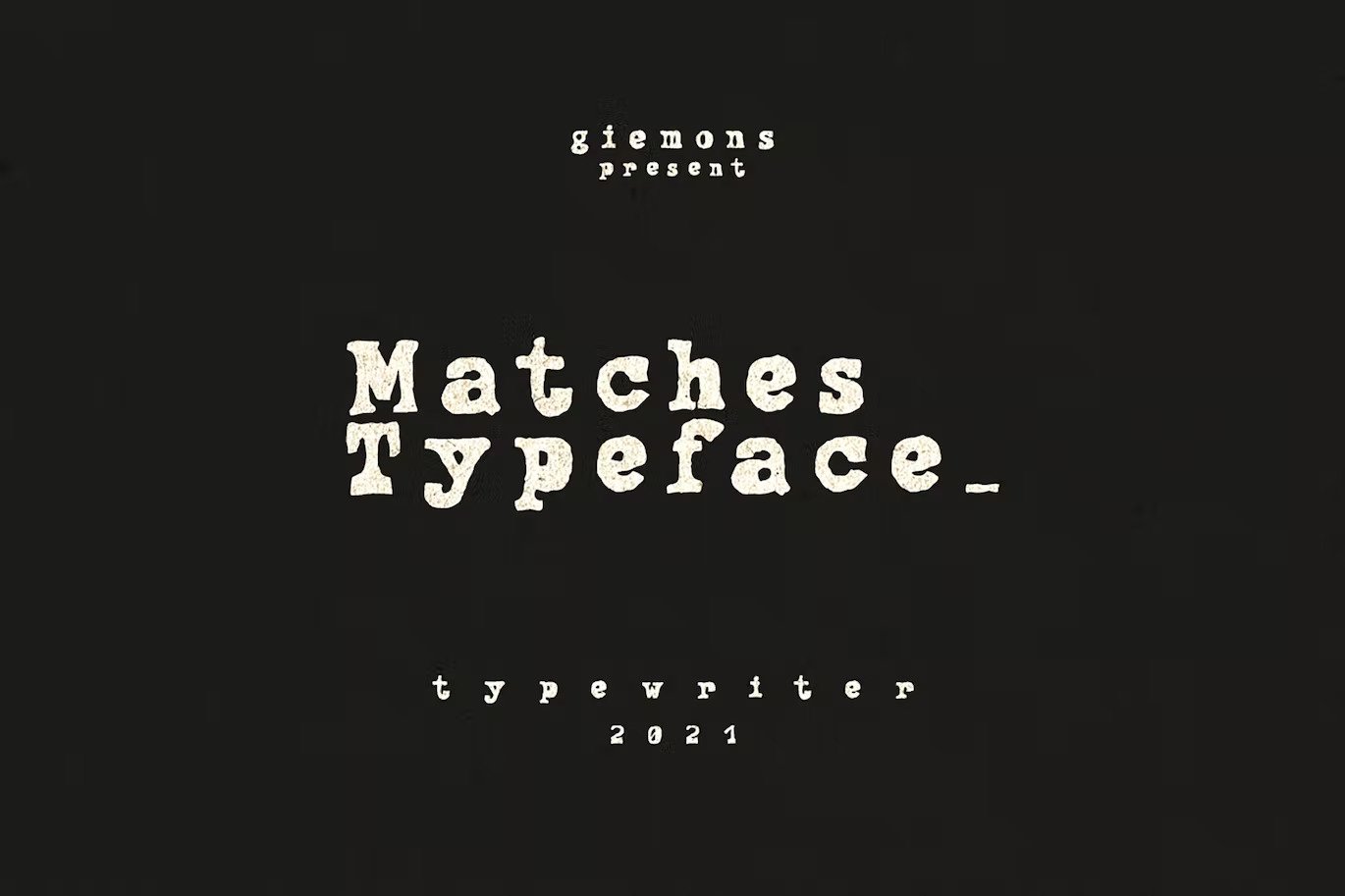
This great typewriter font can make it easier to convey the message in your design. Use for awesome display, logos, labeling, clothing, movie sceens, posters, movie titles and etc.
Agave Azul Typwriter Font
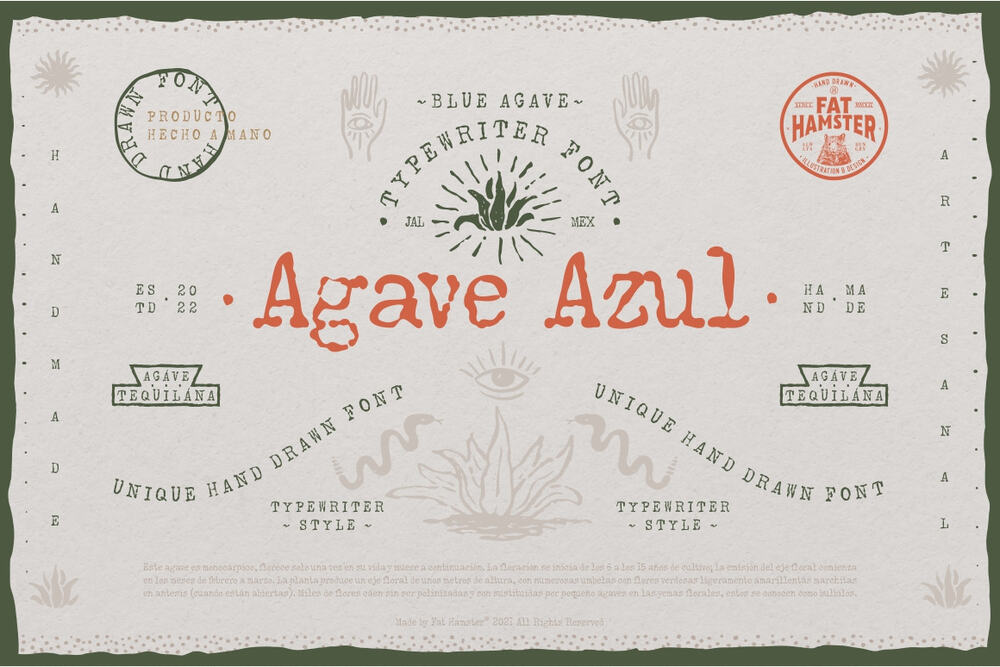
A hand made old typewriter font. Perfect for tequila and mezcal labels, packaging designs, social media quotes, logo and branding designs, apparel designs, whiskey, beer labels and etc.
Bygonest – Old Typewriter Font
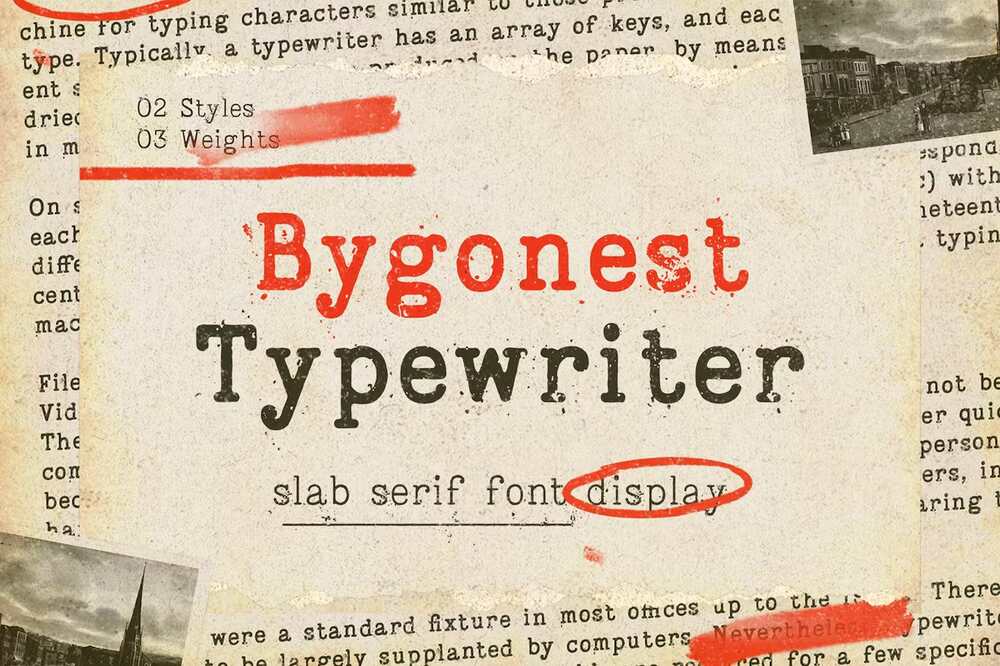
The font comes with 2 styles (clean and rustic) and 3 weights (thin, regular and bold). So good for designs such as newspapers, magazines, quotes, logotypes, posters, labels, packaging and etc.
Free Tox Typewriter Font
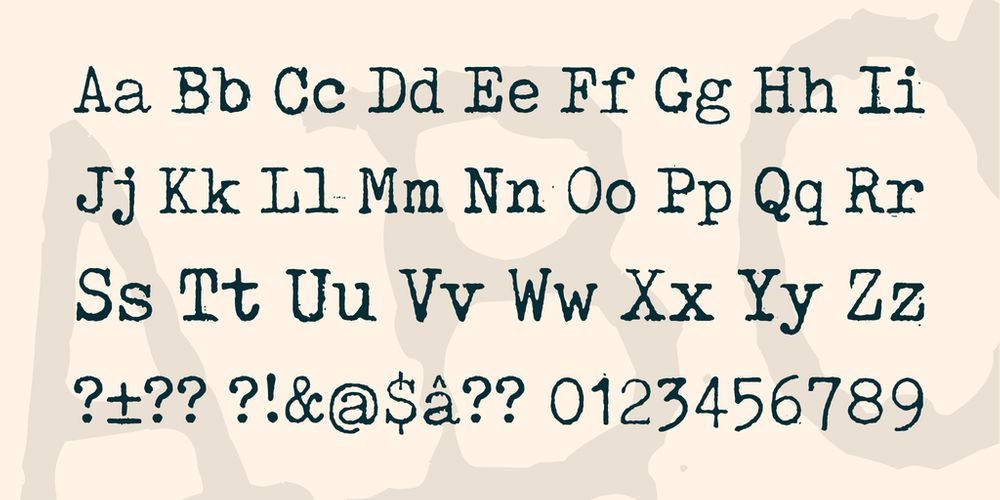
Amazing vintage font free for personal use makes an old typewriter effects for your great design projects.
Free Lumios Typewriter Font
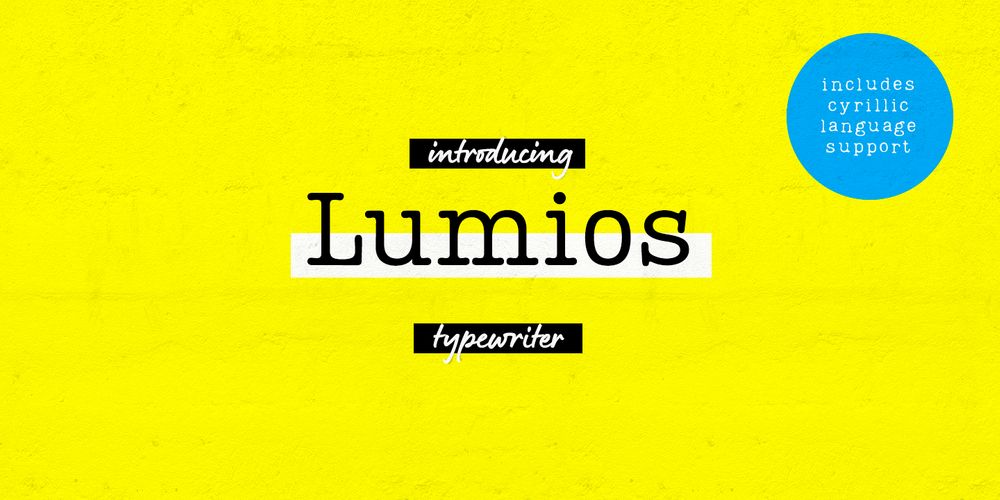
Lumios is a well done old style typewriter font free for personal and commercial use. Perfect for vintage design, postcards, packaging and etc.
Free Veteran Typewriter Font
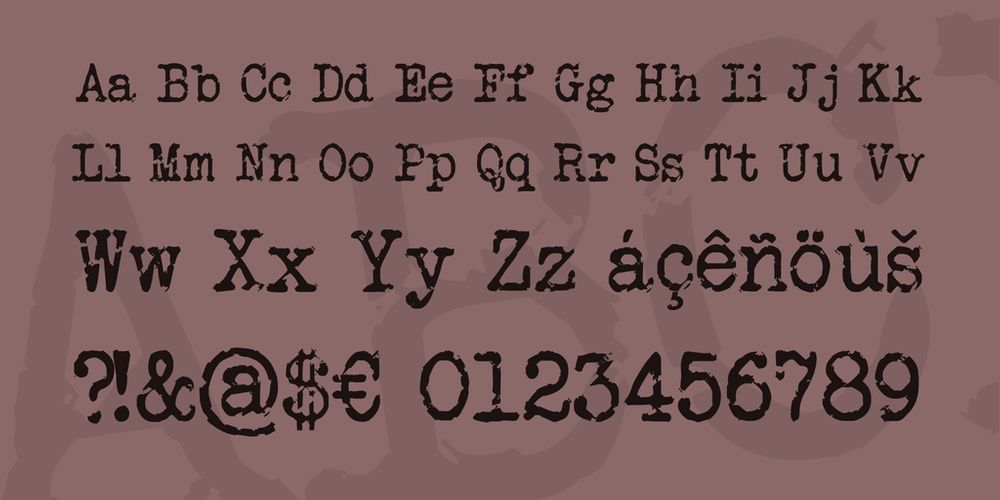
One more old timer typewriter font free for personal and commercial use. It is great for many vintage designs, postcards, branding, packaging and etc.
Free RM Typerighter Old Font
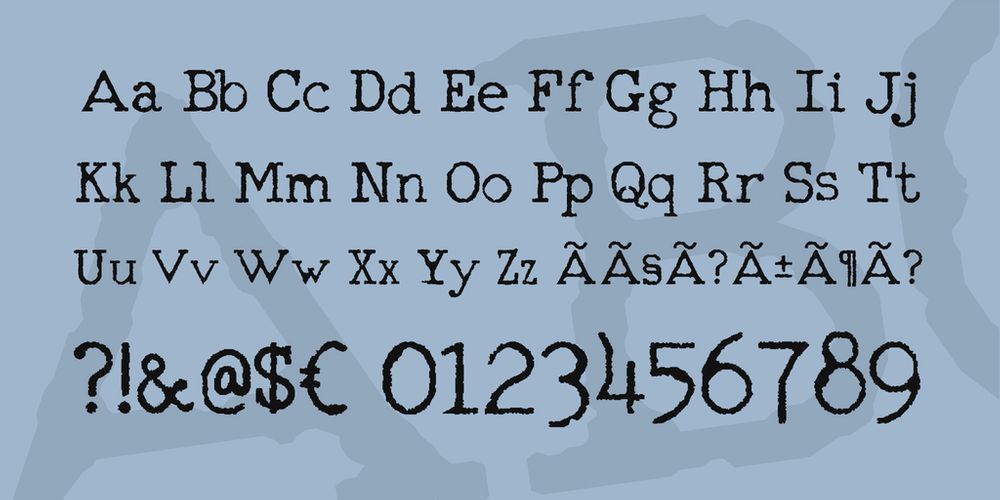
Nice font for your vintage typography design. It comes in a complete set of alphabetical and numercial characters and is free for both commercial and personal use. Best for all kind of vitage designs, greeting cards, postcards, brochures and etc.
Free DK Trashtype Font
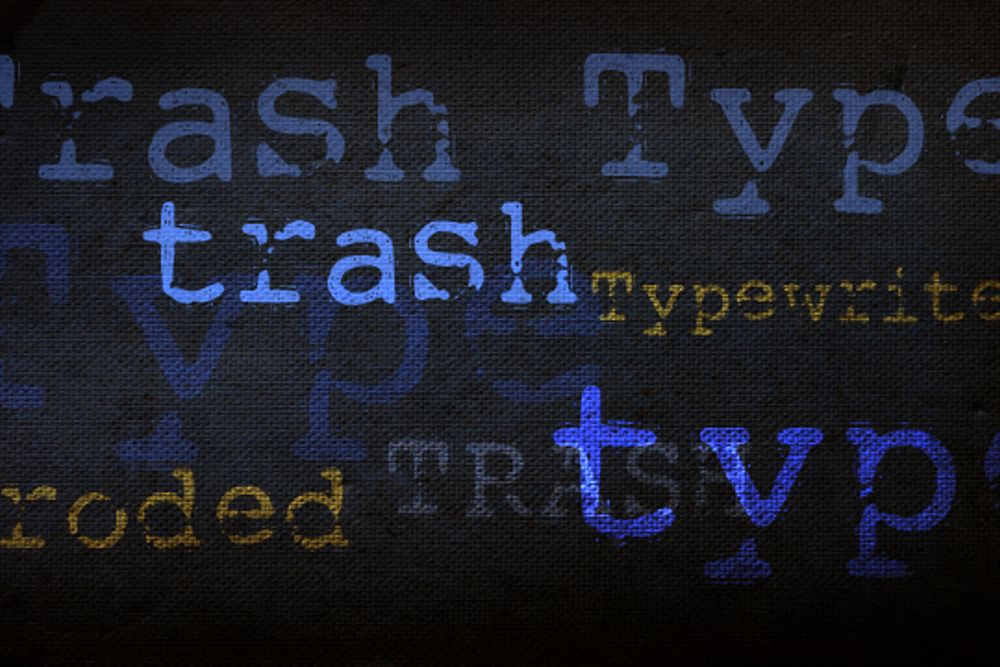
Old and grunge style typewriter font for vintage designing. Best for all vintage designs, letterheads, postcards, packaging and etc.
Unexpected Typewriter Font
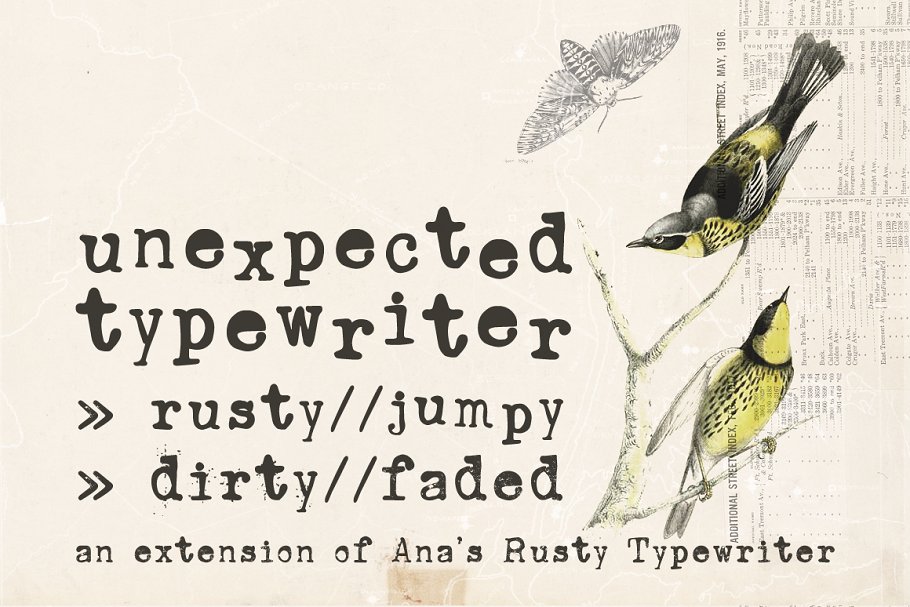
Rusty typewriter font for your investigation. Perfect for all kind of vintage designs, letterheads, postcards, packaging, branding and etc.
Free Elegant Typewriter Font
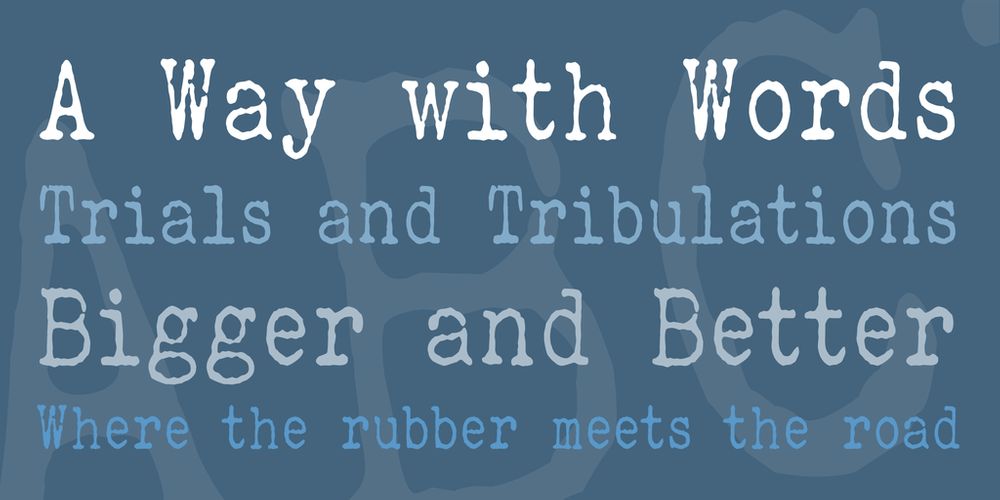
Add an outhentic feel to your retro designs. Free for personal use only. The elgant typewriter font is perfect for all kind of vintage designs, letterheads, postcards, packaging, branding and etc.
Detective – Typewriter Typeface
Detective is a classic mechanical typewriter font. It can be used for business correspondence or in any work that requires an old-fashioned, personal look.
Tiger Lily Font
Tigerlily brings a handmade feel to an otherwise “sophisticated” feeling typeface. Includes numbers and basic punctuation. Best for old newspaper designs, greeting cards, postcards and etc.
Typewriter Font
Typewriter is a classic mechanical typewriter font, available in regular and bold weights. It is perfect for old documents, letters and retro design effects.
Postmark Typewriter.
Postmark typeface come from modern vintage typewriter, come with 2 weight style regular and rough version. Is perfect for headlines, vintage posters, gigs, articles, badges, logos, or event.
Typrighter Font
The typrighter font comes in two versions with 6 different alternative of each letter. Perfect for vintage design, postcards, greeting cards, lettering and etc.
AMTW Font
Inspired from “American old typewriter”. Comes in 3 different styles. This typeface is unabashedly and irresistibly imperfect.
Ginger – Hand Drawn Typewriter Font
A cute and versatile hand-lettered typewriter font. Its hand drawn style provides a slightly imperfect look, perfect to add a handmade touch to your projects. Perfect for logos, quotes, invitations, blog posts, business cards, presentations and etc.
Enigma Typewriter Sans Serif Font
Enigma typewriter is a font that helps you to recreate old documents and papers.
Silk Remington Font
This new typeface is designed to give a real feel of old typewriter with a seven different styles. Perfect for all kind vintage designs, letterheads, old documents, postcards and etc.
Catalina Typewriter Font
This typewriter inspired hand-drawn font family works great as either a display or paragraph text. It has contextual alternatives with 3 versions of each letter, and comes in both upright and custom italics versions. Perfect for vintage documents, postcards, badges, lettering and etc.
Simple Things – Vute Little Font
Simple Things font is an old typewriter typeface suitable for amazing vintage designs. Perfect for that logos, weddings stationary, cards, gifts and typographical posters.
Moments – Typewriter Font